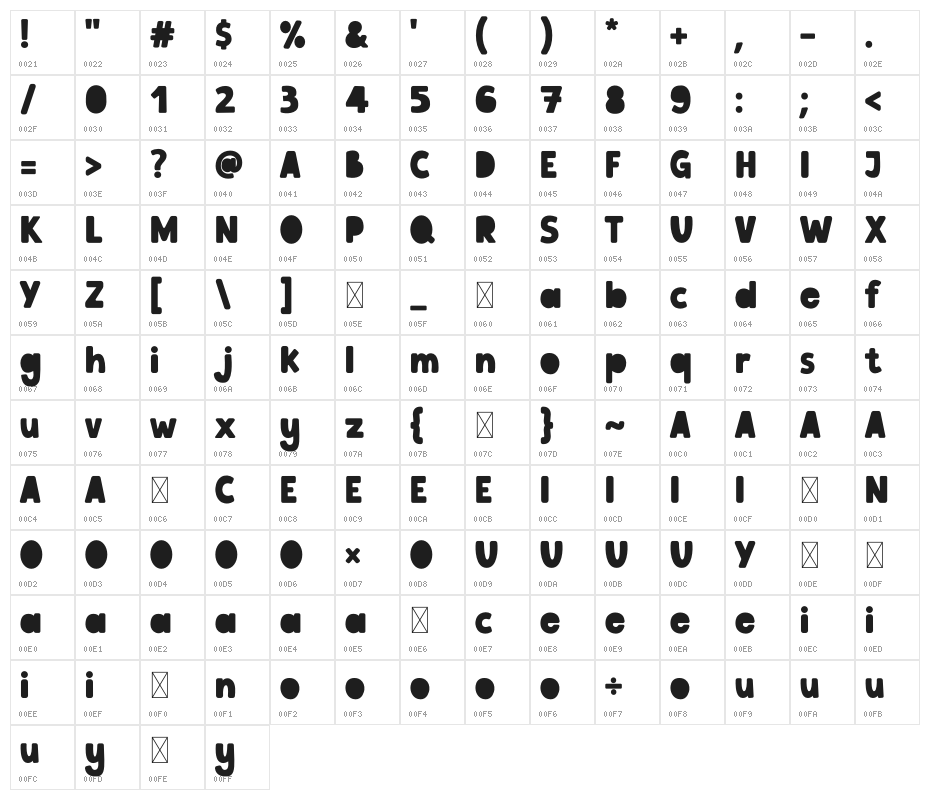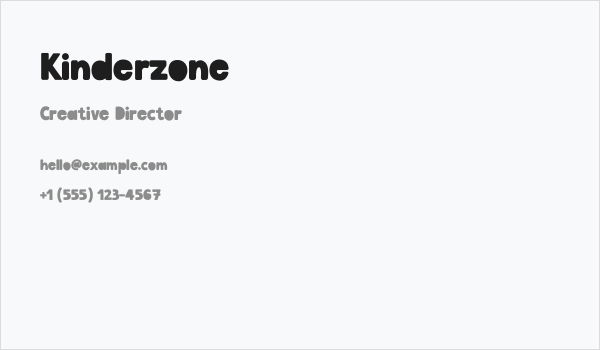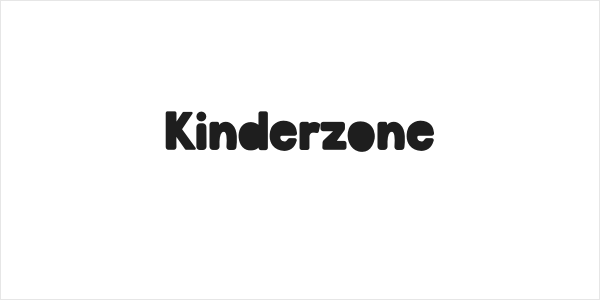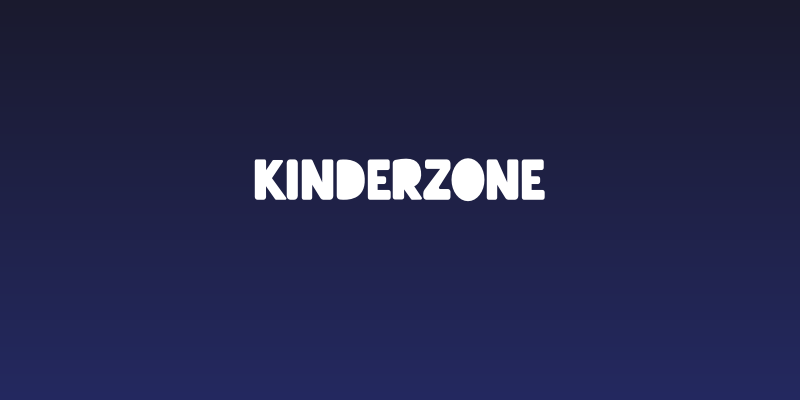
Kinderzone Font
Kinderzone Description
This playful and bold font features rounded, thick letters that convey a sense of fun and friendliness. The characters are uniformly wide, with a consistent stroke weight that gives them a chunky appearance. The uppercase and lowercase letters maintain a similar style, with the lowercase being slightly more compact. Numbers and special characters are equally bold and rounded, ensuring legibility and a cohesive look across all glyphs. This font's design is reminiscent of children's toys or playful branding, making it ideal for settings where a lighthearted and approachable tone is desired.
| Overall Style | Playful |
| Proposed Projects | Ideal for children's books, toy packaging, playful branding, and educational materials. |